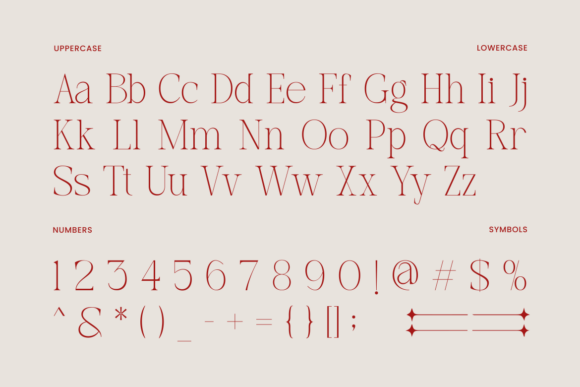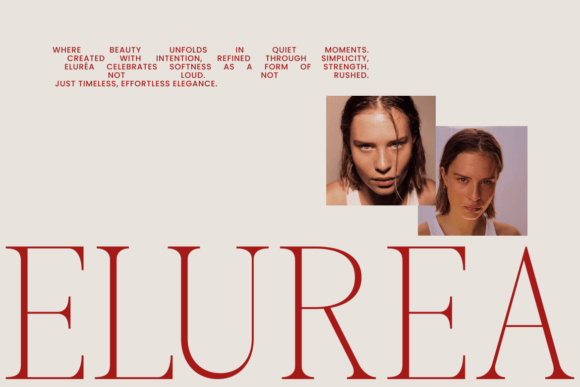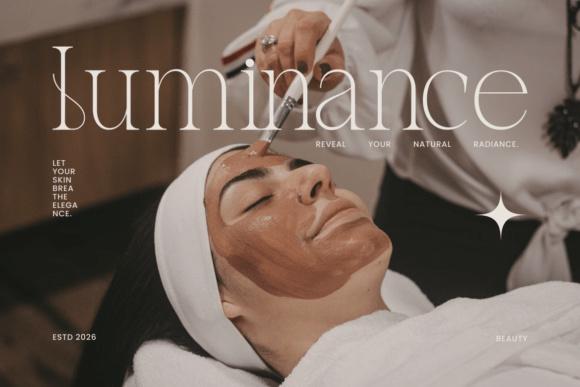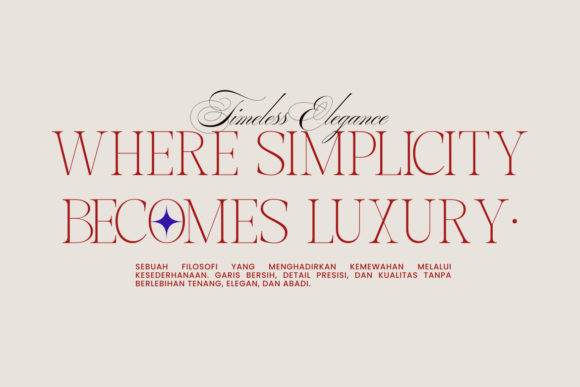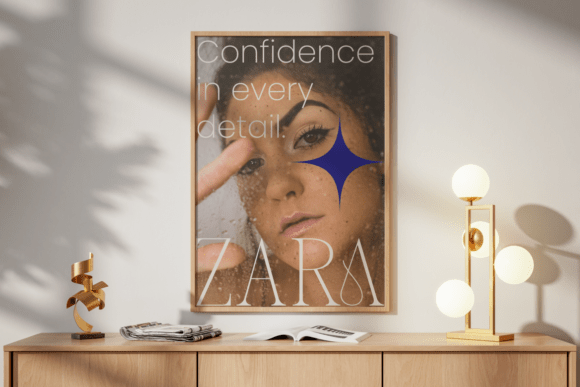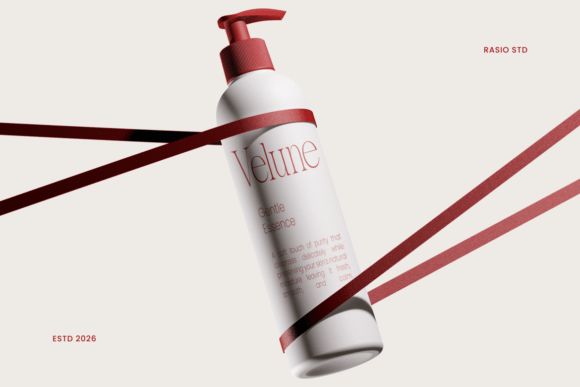
Aveloire Font: Elevate Your Design with Elegance and Sophistication
In the world of typography, a font can make or break the visual identity of a project. For designers and crafters seeking to add a touch of elegance and sophistication to their work, Aveloire Font is an exceptional choice. This modern, elegant serif font is designed with refined proportions and graceful stroke contrast, making it perfect for projects that demand refined and polished typography.
The Essence of Aveloire Font
Aveloire Font combines classic serif foundations with delicate curves and stylish terminals, creating a sophisticated and contemporary typographic personality. Its modern serif structure works beautifully for editorial layouts, luxury branding, fashion publications, magazine headlines, and premium marketing visuals. The font’s refined and elegant design ensures that it strengthens the overall visual identity of any project it’s used in.
Key Features of Aveloire Font
- Refined Proportions: Aveloire Font boasts refined proportions that ensure clarity and readability, even at smaller sizes. This makes it ideal for body text and captions, as well as headlines and titles.
- Graceful Stroke Contrast: The font’s graceful stroke contrast adds a level of sophistication and elegance, making it perfect for projects that require a high-end feel.
- Classic Serif Foundations: Aveloire Font’s classic serif foundations provide a sense of tradition and timelessness, while its delicate curves and stylish terminals inject a touch of modernity.
- Delicate Curves and Stylish Terminals: The font’s delicate curves and stylish terminals create a beautiful balance between classic and modern design elements.
Use Cases for Aveloire Font
Aveloire Font is versatile and can be used in a variety of projects, including:
- Editorial Layouts: The font’s refined design makes it perfect for editorial layouts, such as magazines, newspapers, and books.
- Luxury Branding: Aveloire Font’s sophisticated and elegant design makes it an excellent choice for luxury branding, including logos, packaging, and marketing materials.
- Fashion Publications: The font’s modern and stylish design makes it ideal for fashion publications, including magazines, catalogs, and lookbooks.
- Magazine Headlines: Aveloire Font’s bold and elegant design makes it perfect for magazine headlines, adding a touch of sophistication and glamour to any publication.
- Premium Marketing Visuals: The font’s refined and polished design makes it an excellent choice for premium marketing visuals, including brochures, flyers, and posters.
Why Choose Aveloire Font?
Aveloire Font offers a unique combination of elegance, sophistication, and versatility, making it an excellent choice for designers and crafters seeking to elevate their work. Here are just a few reasons why you should choose Aveloire Font:
- Unique Design: Aveloire Font’s modern serif design sets it apart from other fonts, ensuring that your work stands out from the crowd.
- High Readability: The font’s refined proportions and clear design ensure high readability, even at smaller sizes.
- Versatility: Aveloire Font can be used in a variety of projects, from editorial layouts to luxury branding.
- Elegance and Sophistication: The font’s elegant and sophisticated design adds a touch of refinement and polish to any project.
In conclusion, Aveloire Font is an exceptional choice for designers and crafters seeking to add a touch of elegance and sophistication to their work. Its modern serif design, refined proportions, and graceful stroke contrast make it perfect for projects that demand refined and polished typography. With its versatility and high readability, Aveloire Font is sure to elevate your design and strengthen your visual identity.